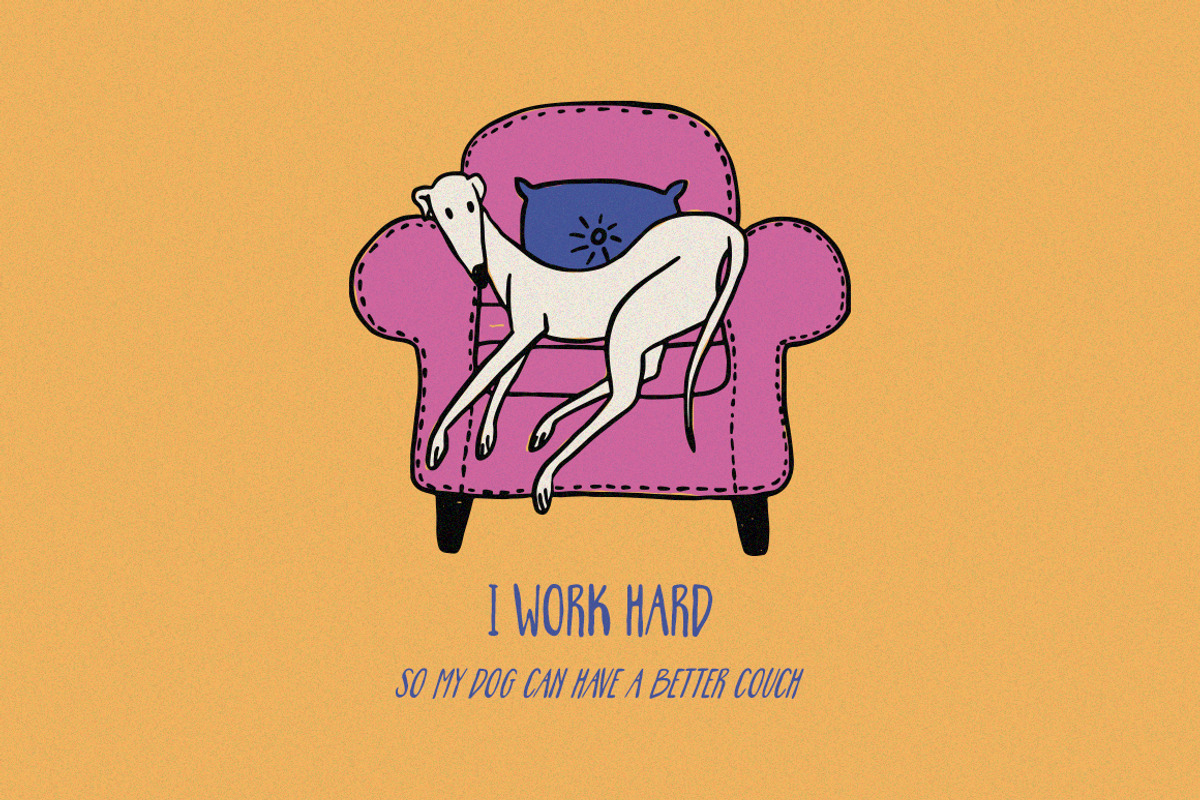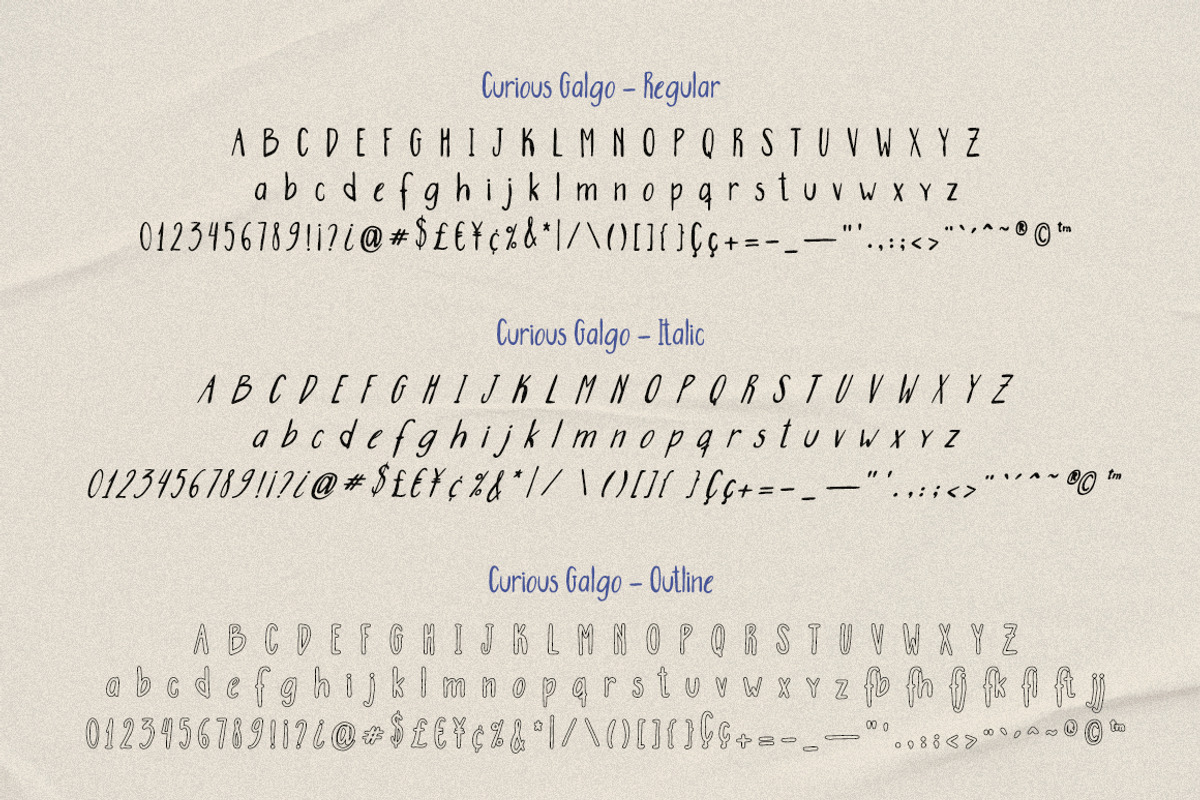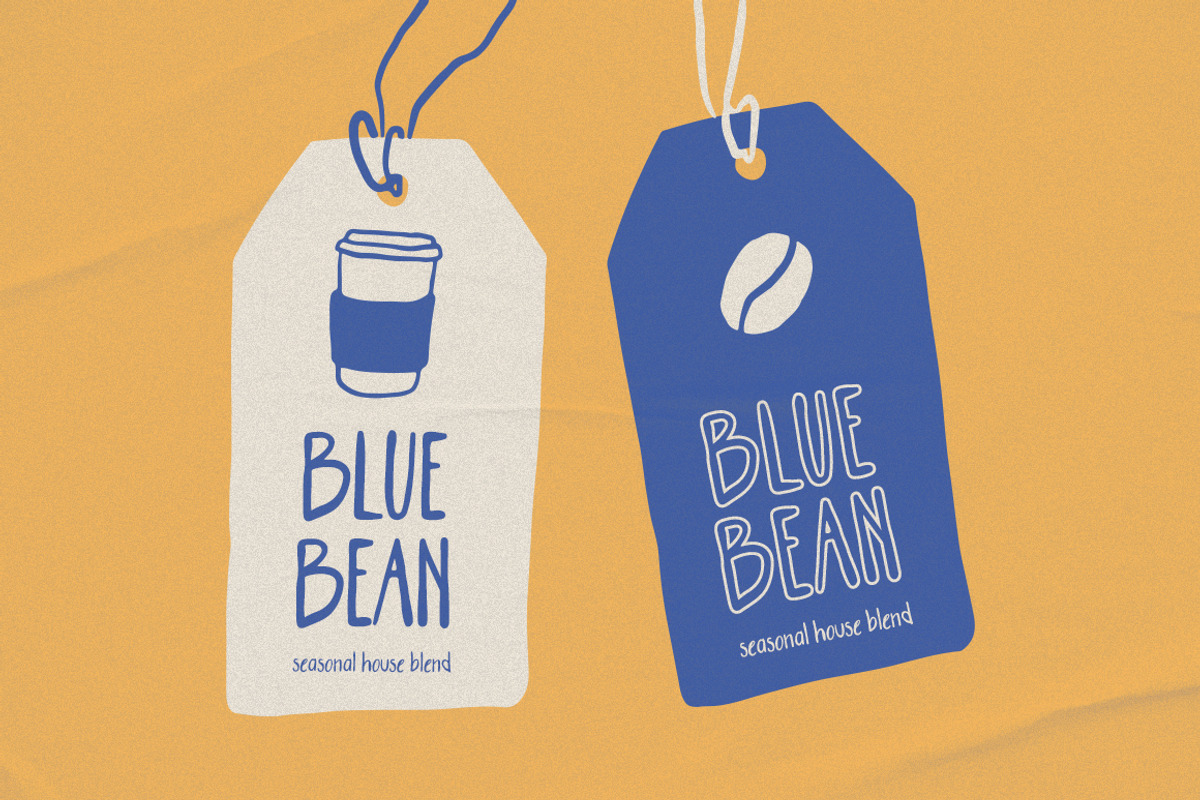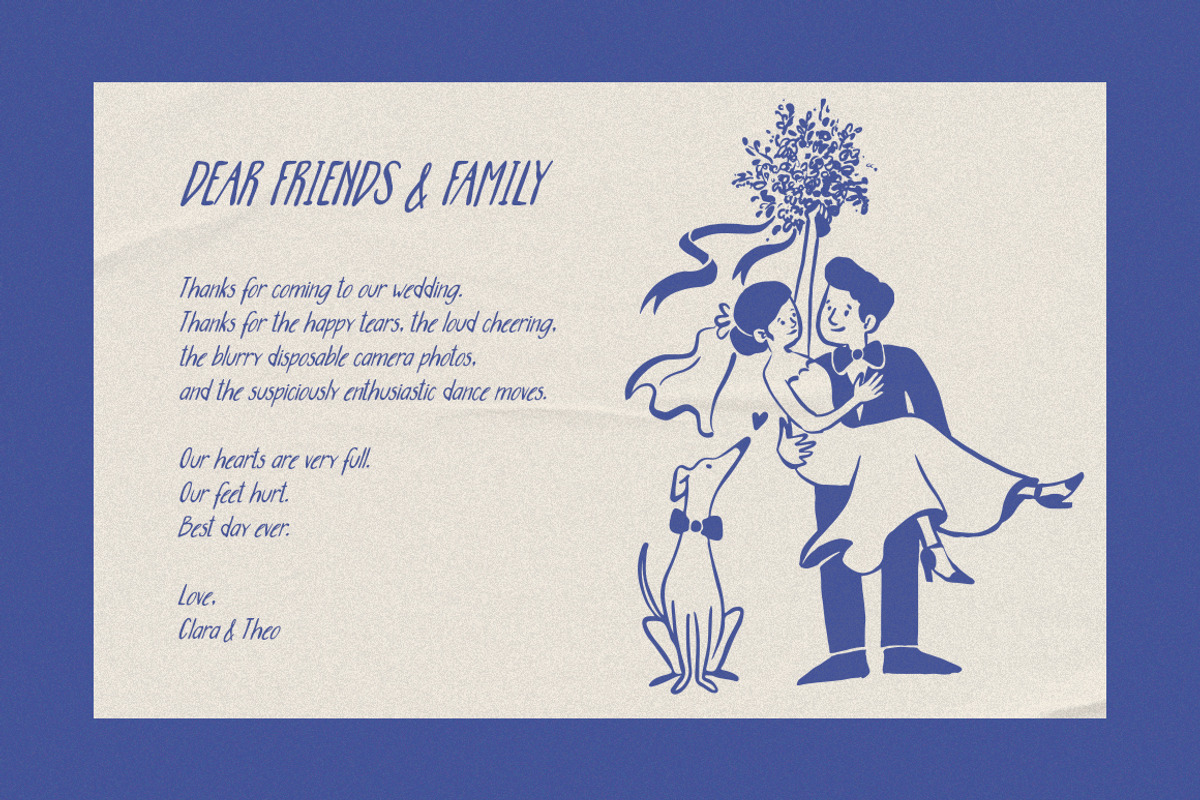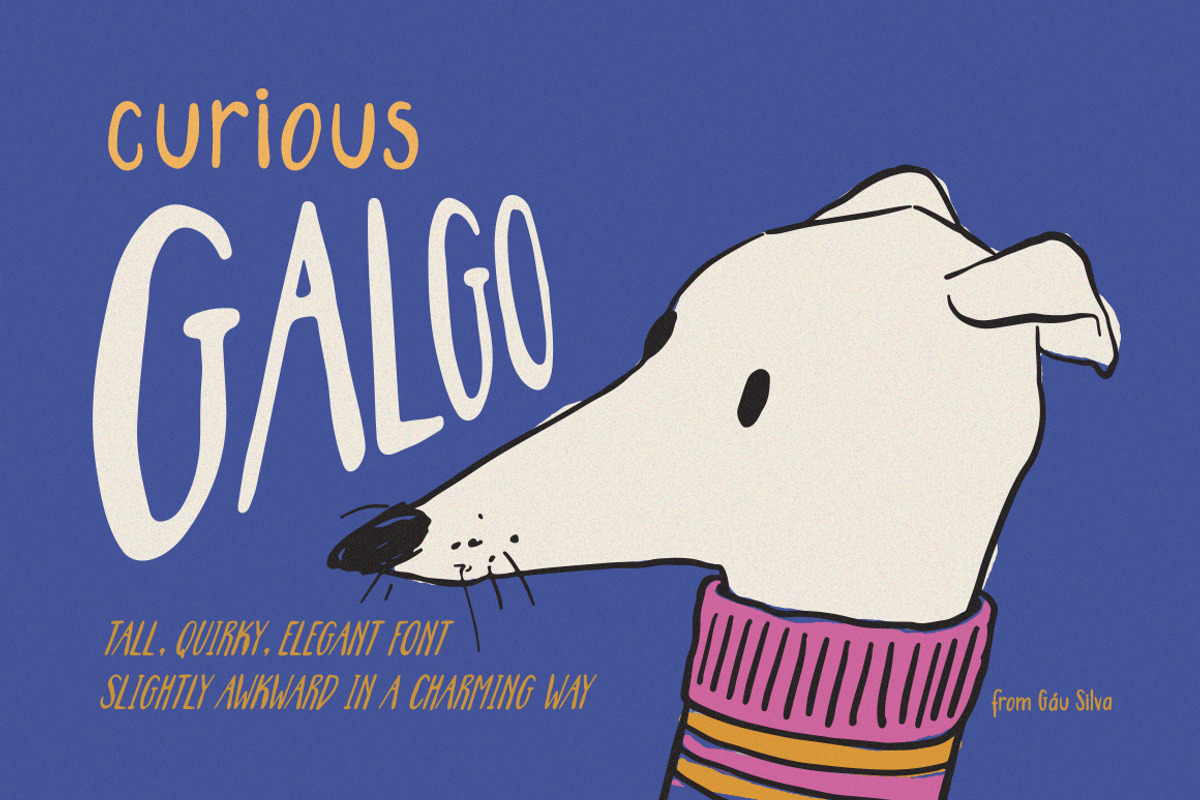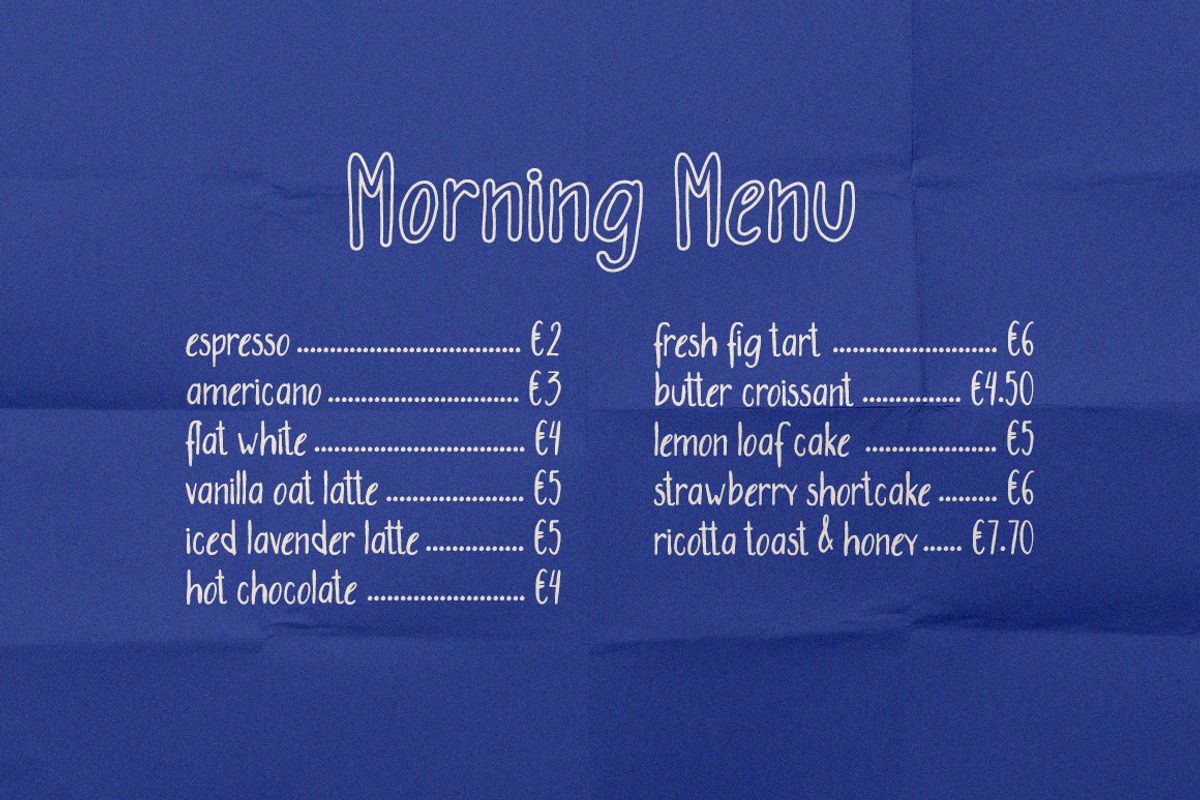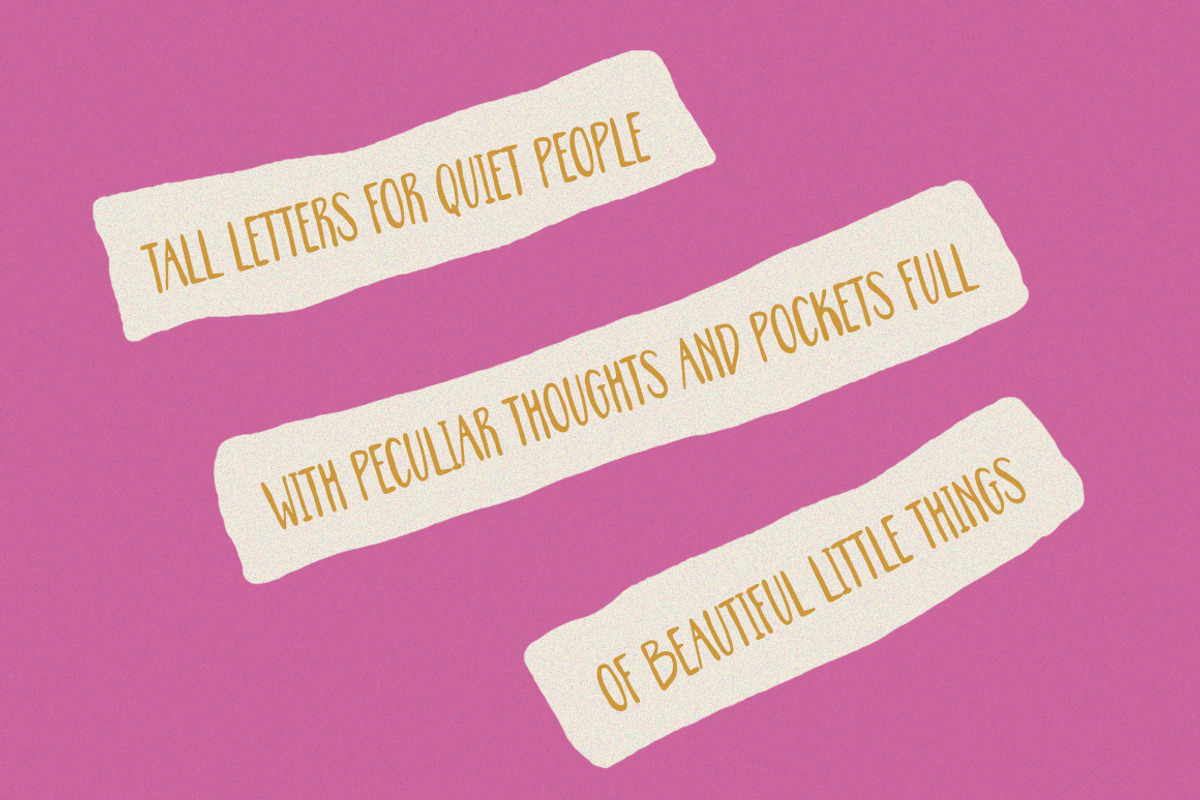
Curious Galgo - Tall Font Family
Meet Curious Galgo - the font family that's tall, quirky, and oddly charming.
Inspired by the lean elegance of the Spanish Galgo greyhound, this font family brings a wonderfully awkward personality to every project. Tall letterforms, unexpected curves, and hand-drawn imperfections make it impossible to ignore (and completely impossible to replicate).
What makes Curious Galgo special
Curious Galgo lives in the sweet spot between editorial elegance and playful imperfection. The tall, condensed proportions give layouts a strong vertical rhythm, while the hand-crafted quirks keep things human and alive. It's the kind of font that makes clients say "yes, that one" on the first draft.
Perfect for
Regular / Italic / Outline font styles
Full uppercase & lowercase character set